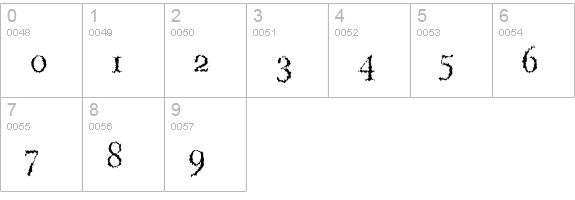
VTLucifersPension Roman Font Details
VTLucifersPension Roman font is a captivating typeface that exudes a sense of enchantment and mystery. Its elegant and intricate design captures the essence of the gothic era, making it the perfect choice for projects that require a touch of darkness and sophistication. This unique font features beautifully crafted letterforms with delicate curves and sharp edges, creating a harmonious blend of elegance and edginess. The bold strokes and intricate details make VTLucifersPension Roman font stand out, ensuring that your text will command attention and leave a lasting impression. But what sets this font apart is not just its captivating design, but also its accessibility. VTLucifersPension Roman font is freely available to download at FontsMarket.com, allowing you to enhance your creative projects without any financial constraints. Whether you're designing a logo, creating a poster, or crafting a website, this font will add a touch of sophistication and allure, all while being easily accessible to everyone. So why wait? Download VTLucifersPension Roman font today and let your imagination run wild. With its captivating aesthetics and free availability, this font will surely elevate your designs to new heights. Let your projects shine with the mesmerizing charm of VTLucifersPension Roman font, and watch as your creativity takes flight.